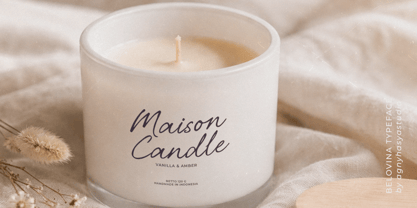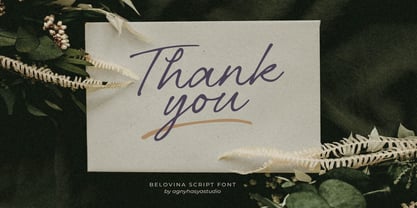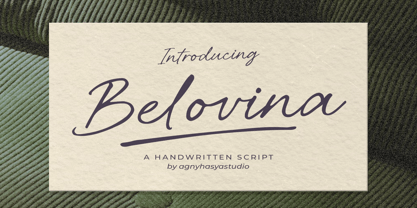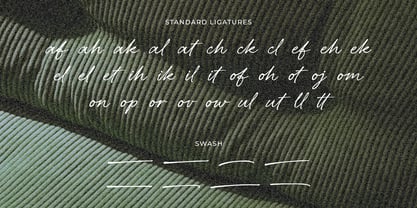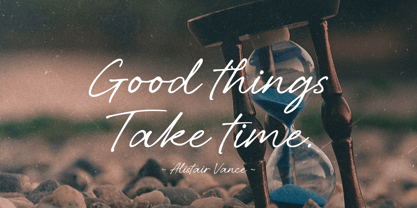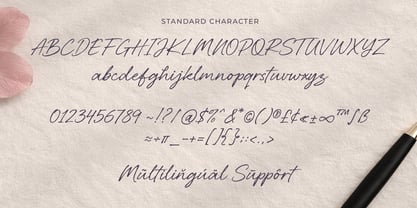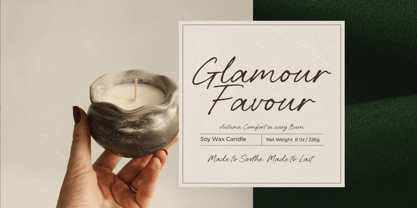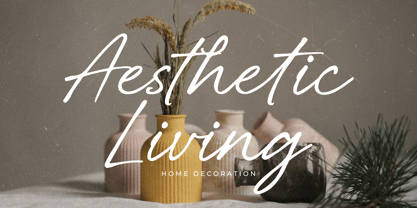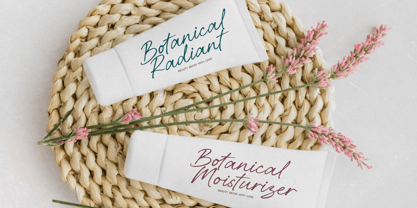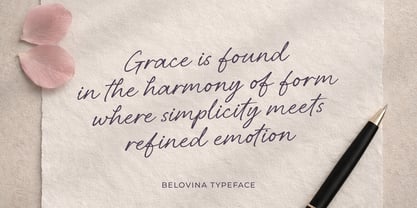
Belovina
by Agny Hasya Studio
The Belovina Font Family was designed by Firman Maulana and published by Agny Hasya Studio. Belovina contains 1 styles. More about this family
Belovina is a clean and elegant handwritten script font designed with a natural and modern flow. Crafted to deliver simplicity with refined style, this font brings a perfect balance between casual handwriting and professional elegance. With its smooth strokes and readable letterforms, Belovina is highly versatile and works beautifully across a wide range of design projects. Whether you're creating branding, packaging, or social media content, this font adds a stylish and personal touch. Belovina is ideal for: • Beauty and skincare branding • Product packaging • Logo design • Social media content • Quotes and typography • Boutique and lifestyle brands • Business cards and stationery Its minimalist yet expressive style makes it perfect for designers who want a handwritten look that feels clean, modern, and effortlessly elegant. Thanks for stopping by. Questions, ideas, or feedback are always welcome. Feel free to reach out anytime. Warm regards, agnyhasyastudio
Designers: Firman Maulana
Foundry: Agny Hasya Studio
agnyhasyastudio (est. 2015) is based in Bandung, Indonesia. Originally started as a creative outlet for logos, branding, templates, and illustrations, the studio has since evolved into a dedicated type foundry. In 2022, we began our journey into type design, focusing on crafting display, blackletter, brush, script, and handwritten fonts. What started as a hobby quickly became a commitment to producing high-quality typefaces. At agnyhasyastudio, our vision is to create fonts that merge aesthetic appeal with practical usability, ensuring they are expressive, versatile, and timeless tools for designers worldwide.